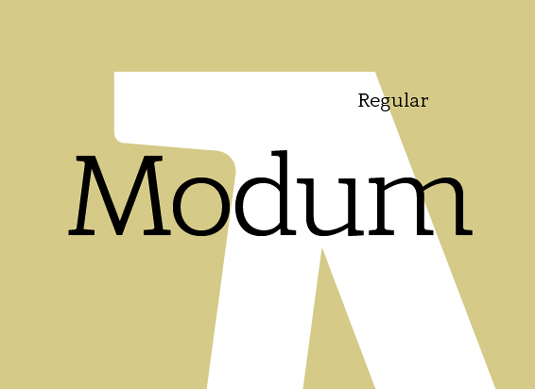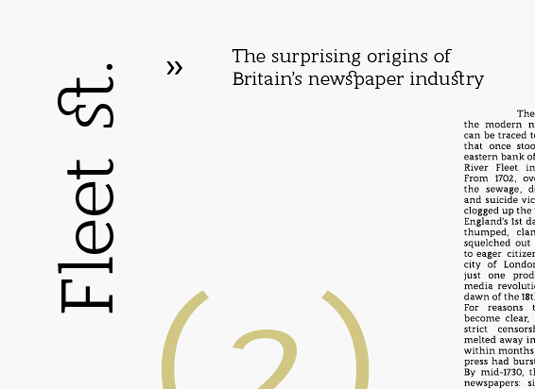
Font of the day: Modum
Modum from The Northern Block
A contemporary serif font, Modum was created by the team at type foundry The Northern Block. Its website describes it as being a design that 'takes influence from traditional serif forms to develop a precise, highly functional text face with a low contrast. Smooth radius details are blended with carefully drawn angles that give a crisp, distinctive aesthetic when used across body copy.
"Modum is a stylish modern day serif with great charm, harmony and practicality that is best suited for complex hierarchical projects, such as editorials, newspapers and text based books."